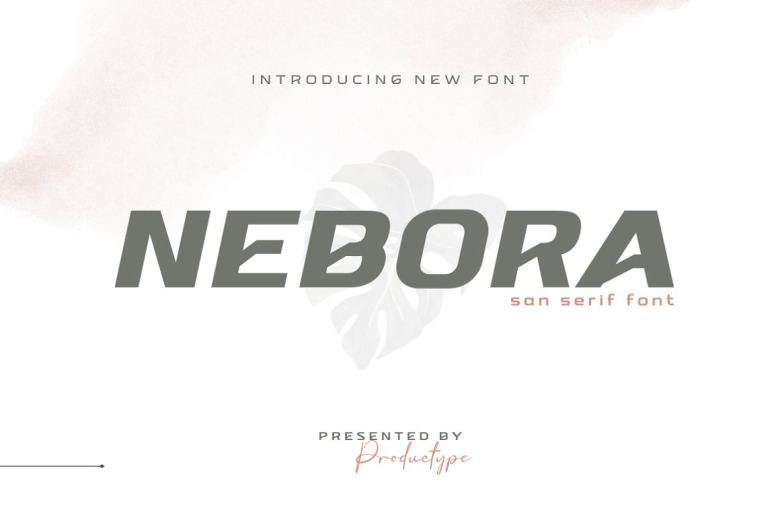
Nebora Font
Nebora Sans Serif is a geometric style font known for its clean lines and negative space that skillfully draw the eye. Inspired by arctic beauty and fresh breezes, this typeface makes big statements on magazine covers, packaging, and promotional posters with impact.
Nebora Sans Serif Font Family